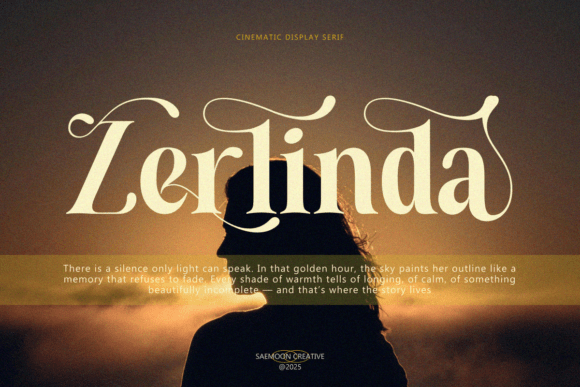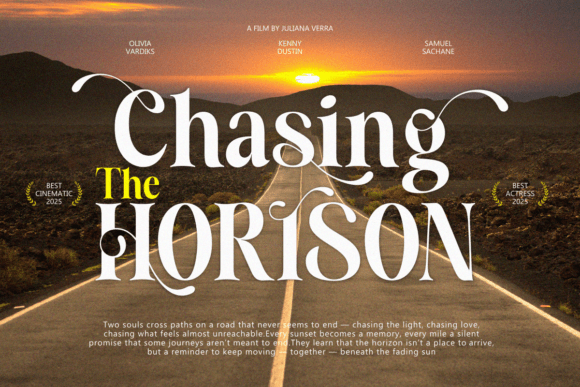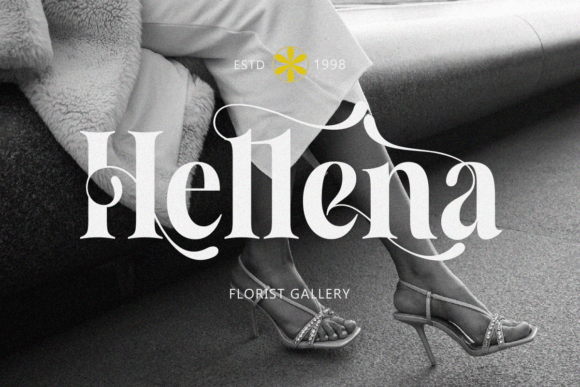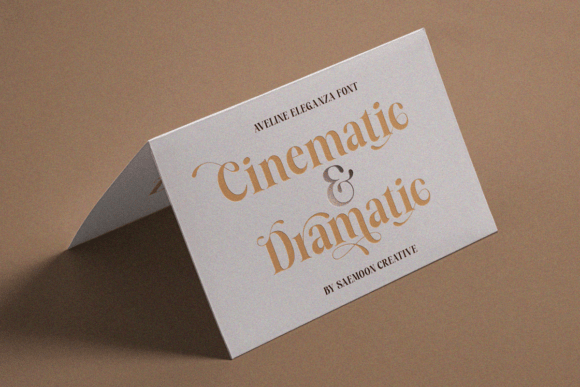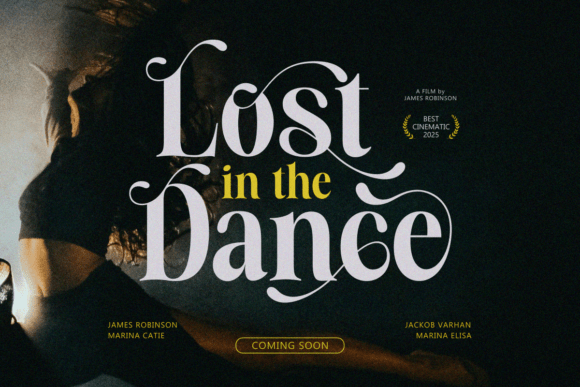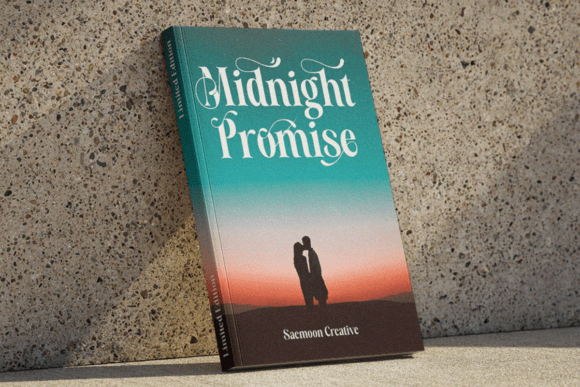
A Moment of Typography Magic
Have you ever stared at a beautifully crafted film title or a luxury brand’s elegant logo and thought, ‘How did they do that?’ The magic happens when typography meets artistry, and the Aveline Eleganza Font is the perfect tool for designers who want to create those unforgettable visuals.
Aveline Eleganza Font is a cinematic display serif that combines timeless sophistication with modern flair, making it the ideal choice for designers who want to elevate their compositions. With its sweeping curves, high-contrast strokes, and dramatic ornamental terminals, this font brings a refined sense of luxury to every project. Whether you’re working on editorial design, luxury branding, or film posters, the Aveline Eleganza Font offers the visual drama your project deserves.
As a designer, you’ll appreciate the value of this font, which allows you to add a bespoke, handcrafted feel to your work. With its graceful alternates and decorative swashes, the Aveline Eleganza Font is perfect for creating striking centerpieces that capture the viewer’s attention.
Aveline Eleganza Font Key Features
- Font Family: Aveline Eleganza is a serif font family that combines classic elegance with modern sophistication.
- Unique Characteristics: The font features intricate details, such as subtle flair on the letters and ornate flourishes, which give it a unique and sophisticated look.
Aveline Eleganza Font Review
As a designer, I’ve had the chance to work with a wide variety of fonts, and I’m excited to share my thoughts on the Aveline Eleganza Font.
- Beautifully crafted, elegant script letters
- Highly customizable with multiple OpenType features
- Works well in both print and digital applications
- Supports a wide range of languages
- May not be suitable for bold, headline-style typography
- Some characters may require manual kerning for optimal spacing
- Lacks a complete set of numerical characters (e.g. oldstyle figures)
Overall, I’m impressed with the Aveline Eleganza Font’s elegant design and high level of customization. While it may have some limitations, I believe it’s a great choice for designers looking to add a touch of sophistication to their projects. With a little finesse, I’m confident that this font can help take your designs to the next level.
Aveline Eleganza Font is ideal for:
- High-end branding and marketing materials
- Luxury packaging and product design
Alternatives to Aveline Eleganza FontPlayfair Display
Playfair Display is a high-end serif font that features elegant and luxurious qualities. It is suitable for use in formal invitations, magazine headings, and high-end branding.
Playfair Display is more ornate and formal than Aveline Eleganza Font, with a greater emphasis on luxury and sophistication. While both fonts share a sense of elegance, Playfair Display is more dramatic and eye-catching.
Carolyna Pro is a modern script font that features a flowing, handwritten feel. It is suitable for use in branding, packaging, and advertising materials that require a touch of sophistication and elegance.
Carolyna Pro is more fluid and dynamic than Aveline Eleganza Font, with a greater emphasis on movement and expression. While both fonts share a sense of elegance, Carolyna Pro is more versatile and adaptable.
What is the recommended font size for optimal readability with the Aveline Eleganza Font?
The recommended font size for optimal readability with the Aveline Eleganza Font is between 12 and 14 points for body text. However, this may vary depending on the specific application and intended use of the font.